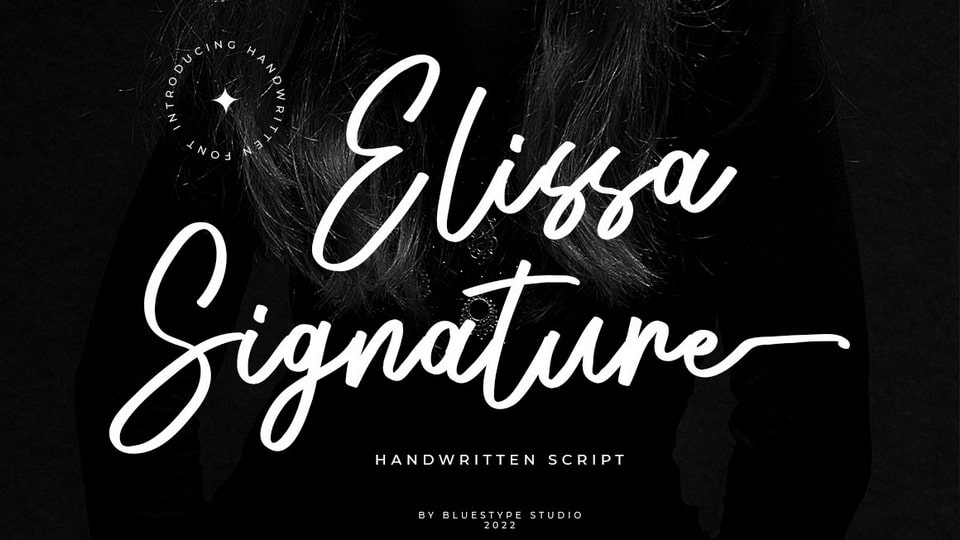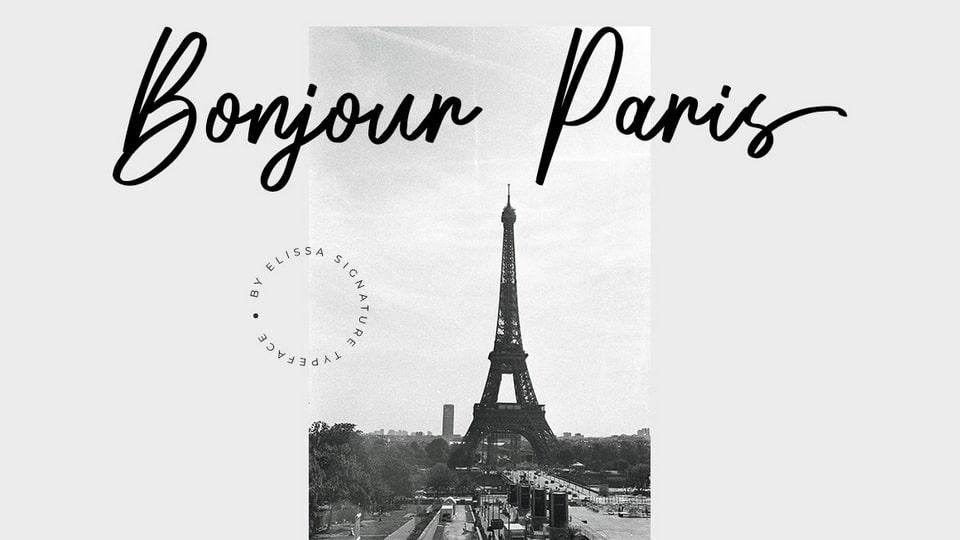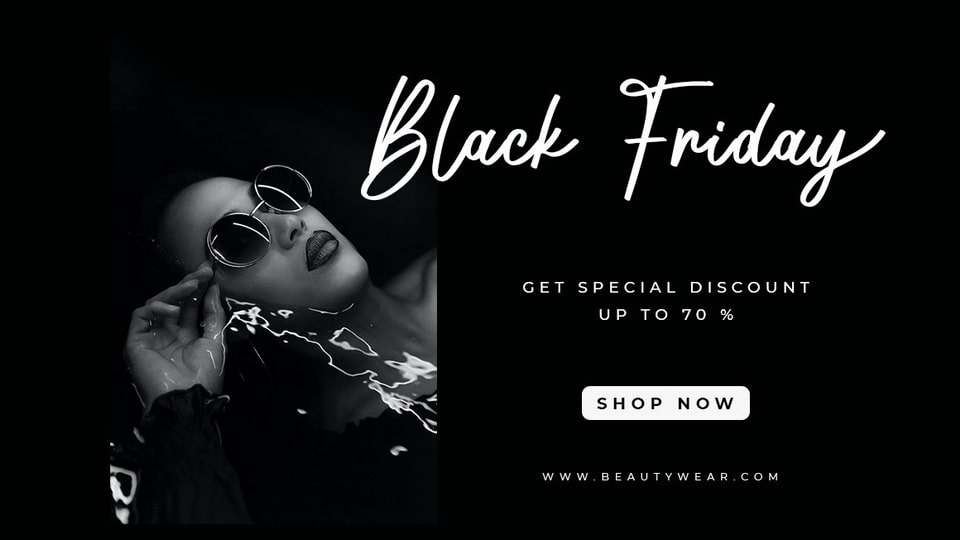
Elissa Signature is a sweet script typeface with legibility and authenticity. Use it for any design project that requires a personalized appearance!
This font is suitable for use on photography, business cards, weddings, t-shirt designs, logos, magazines, quotes, fashion, watermarks, invitations, signatures.